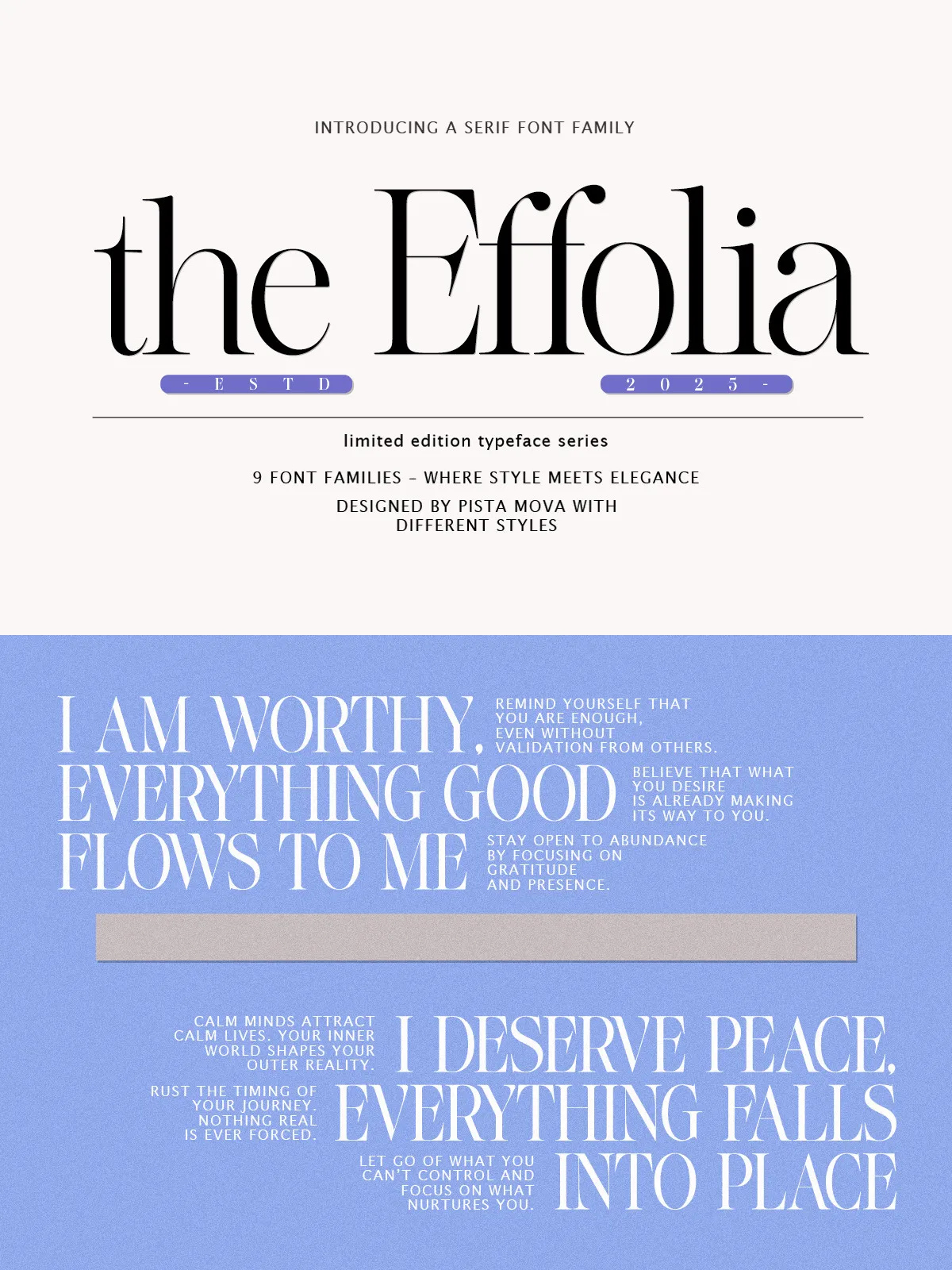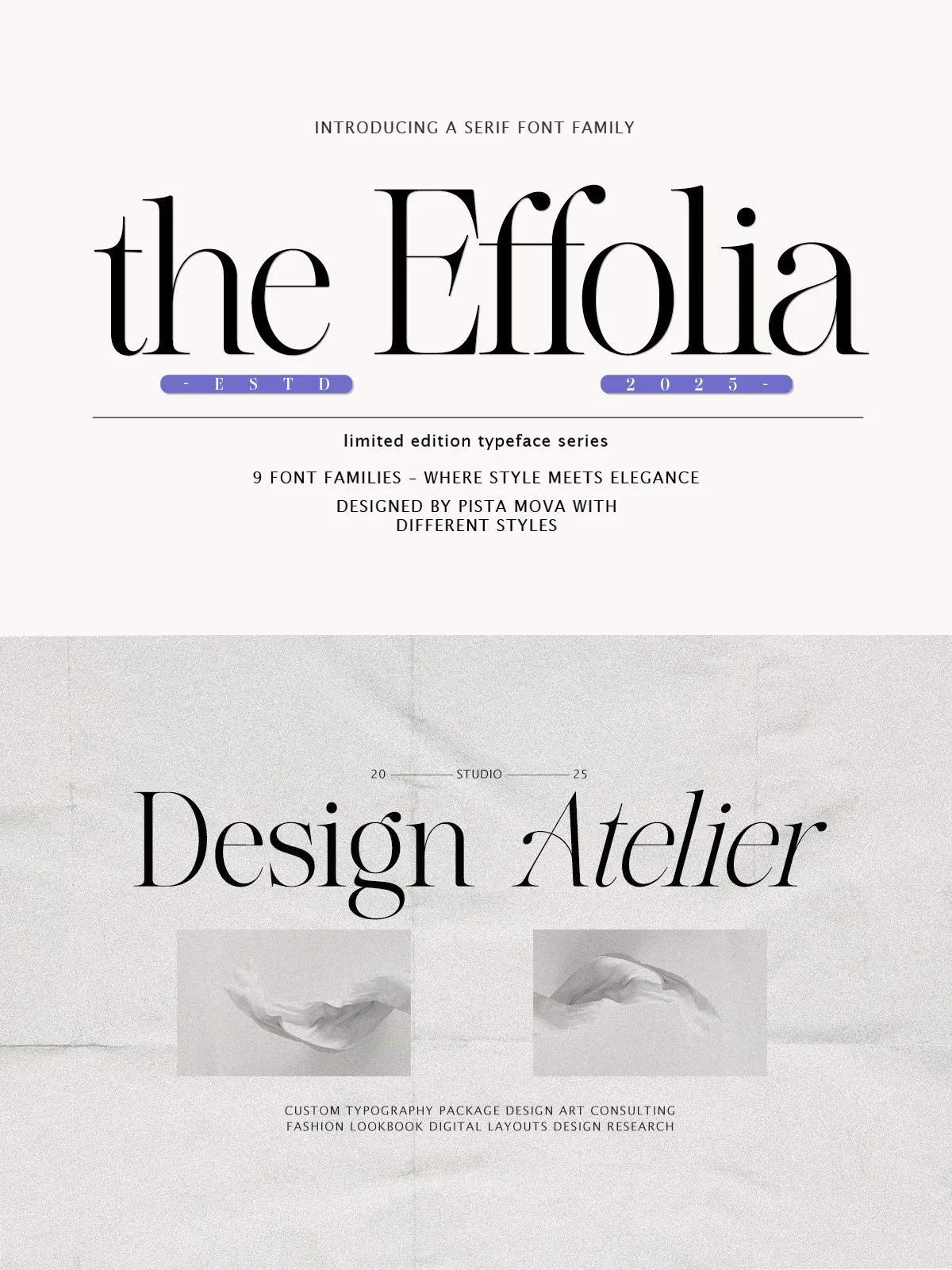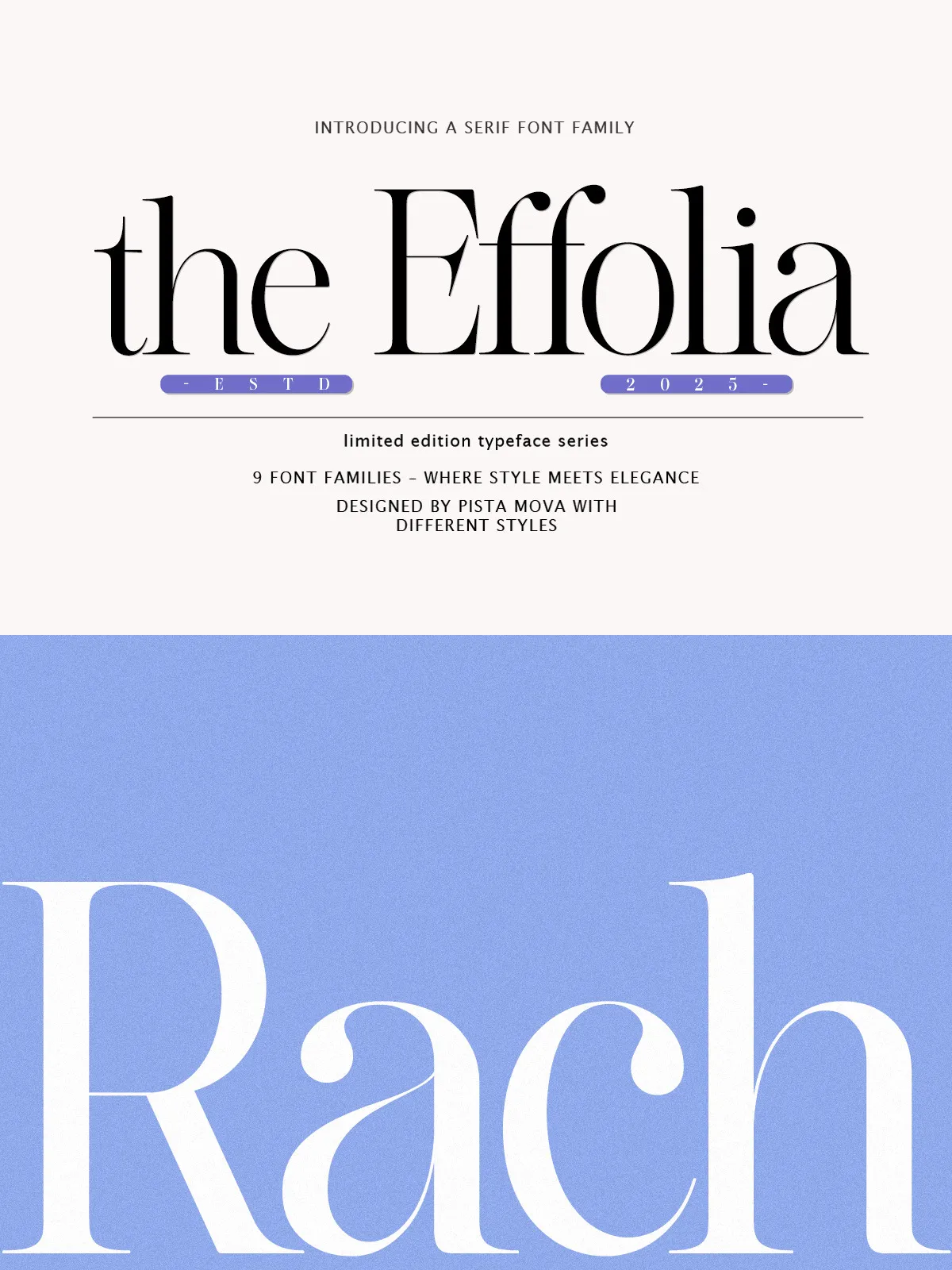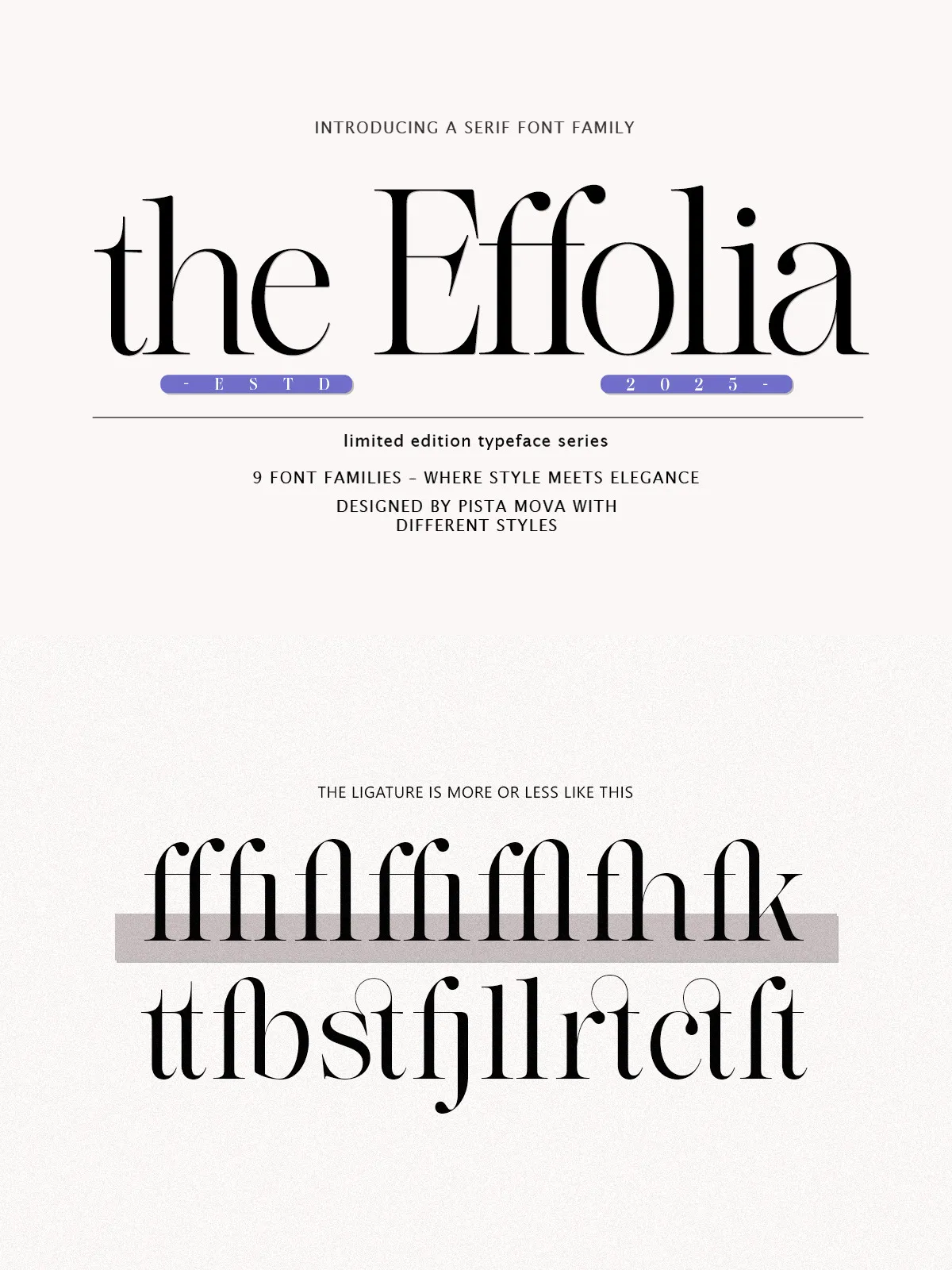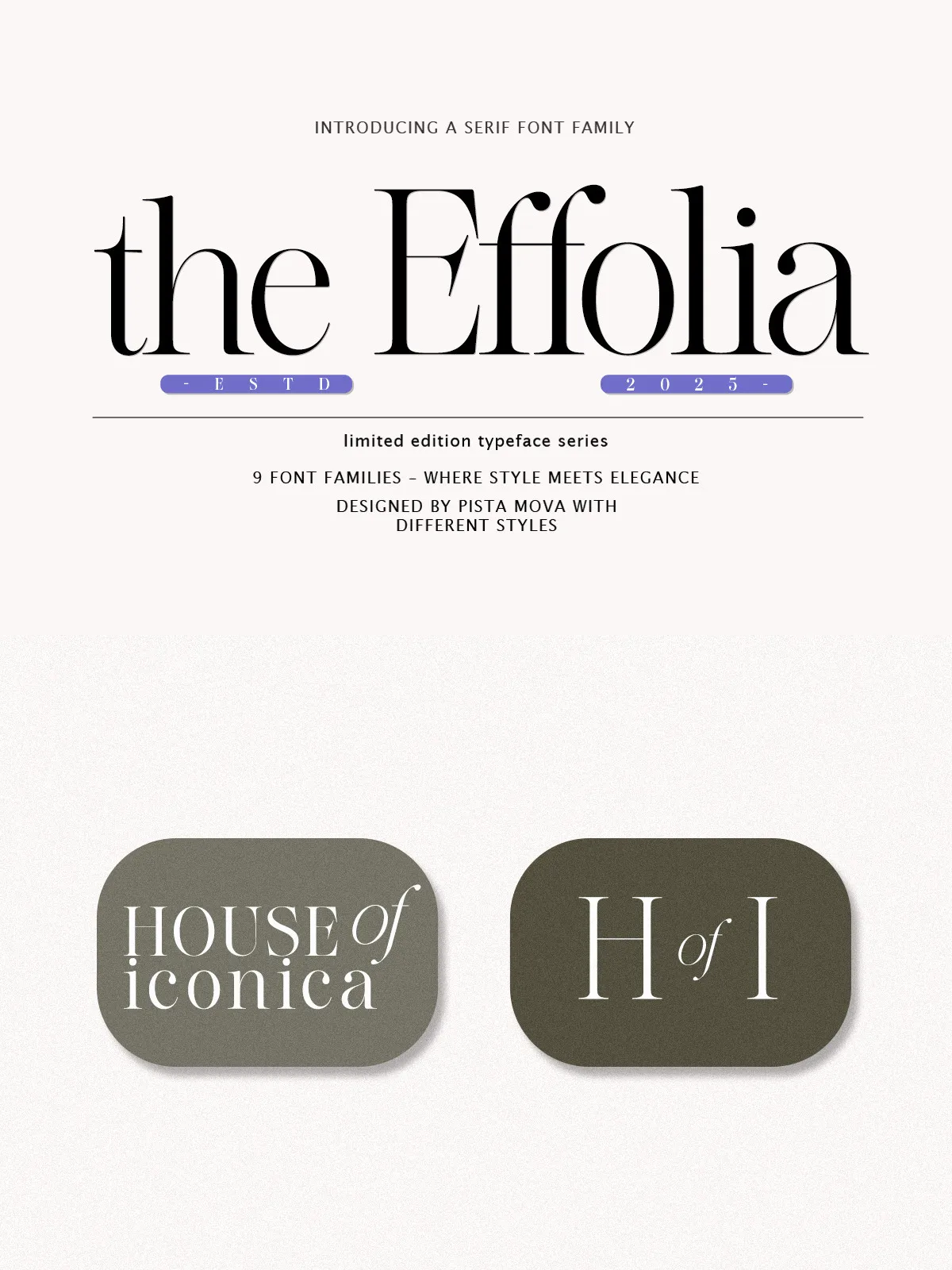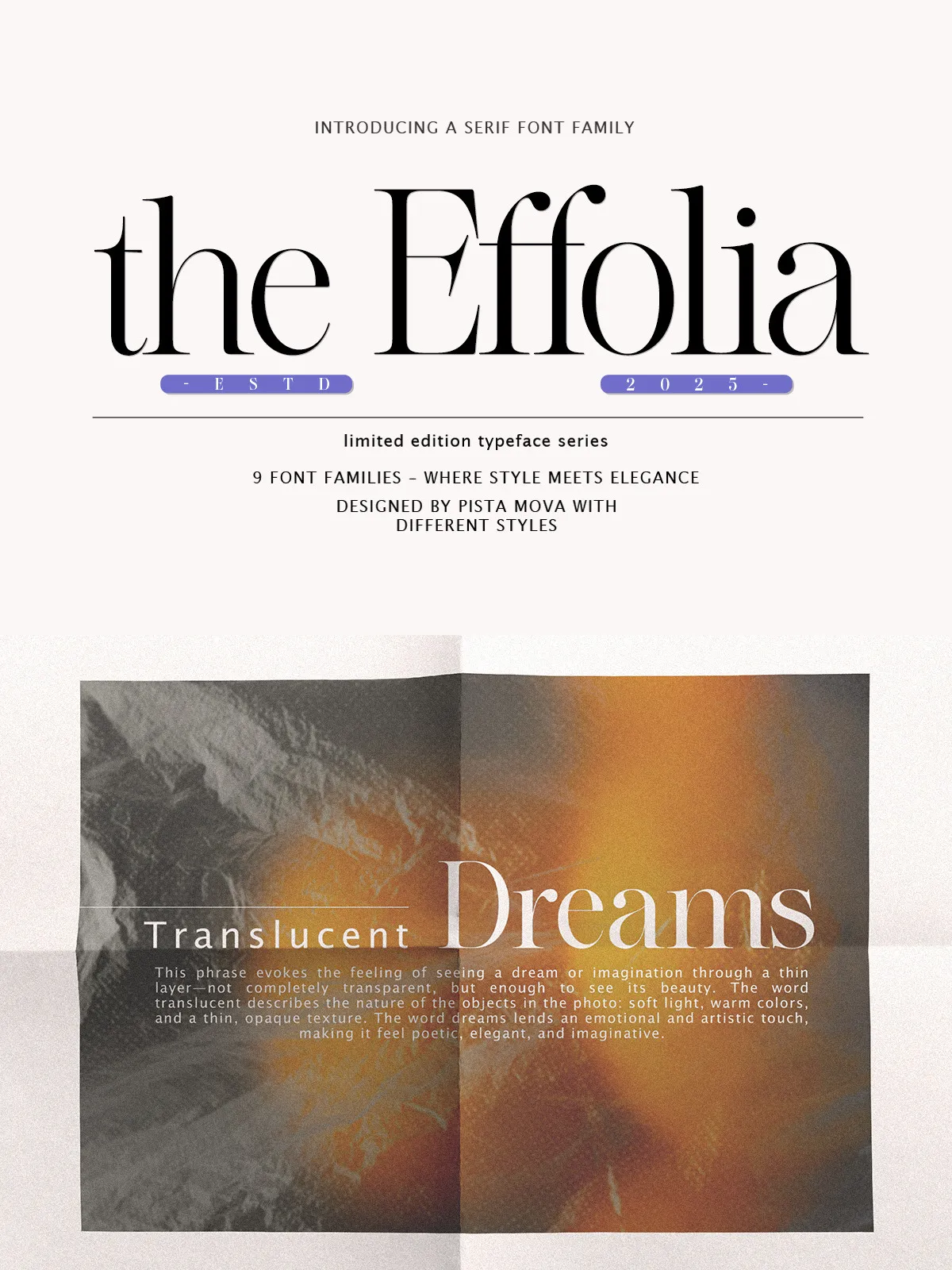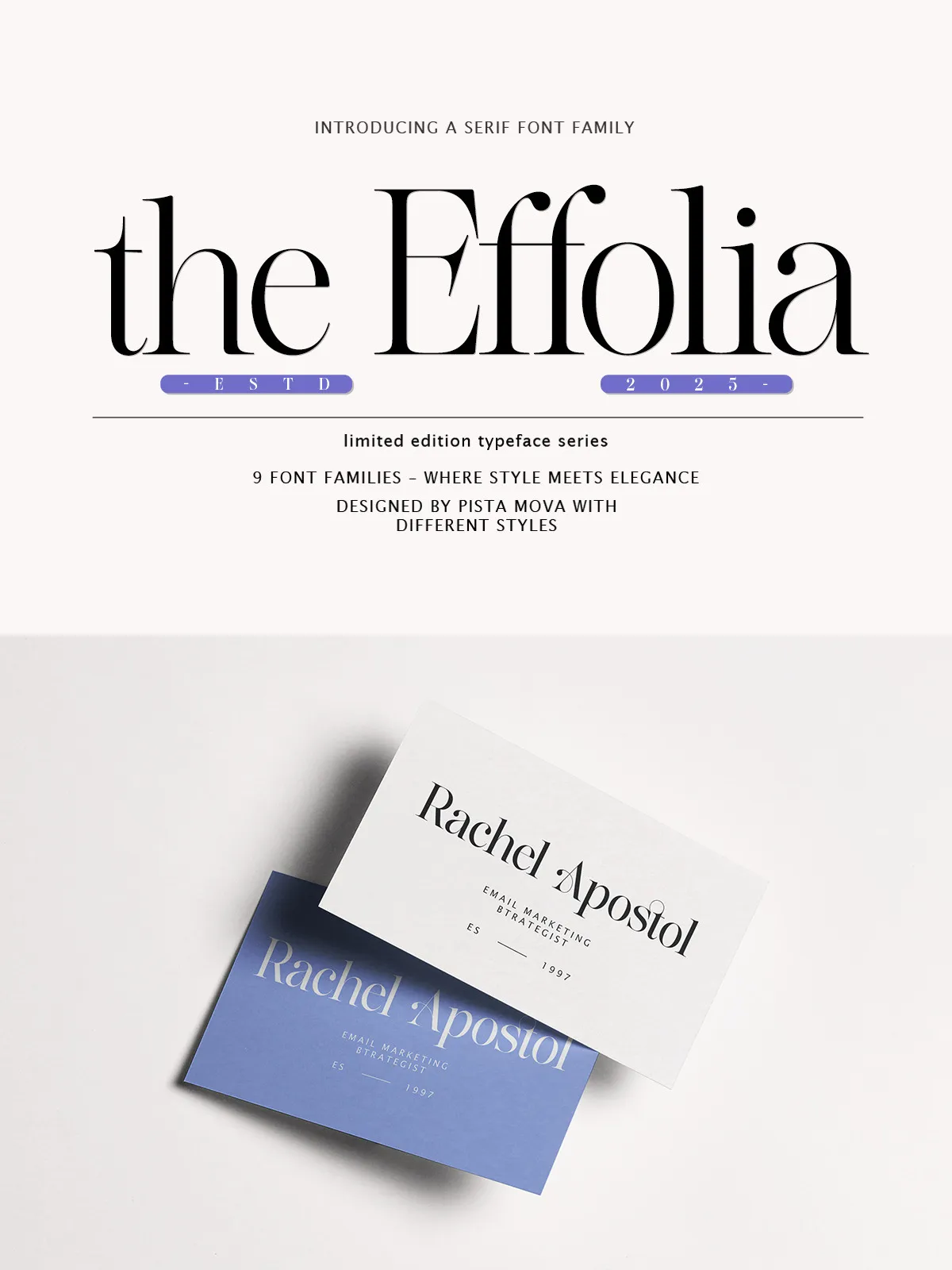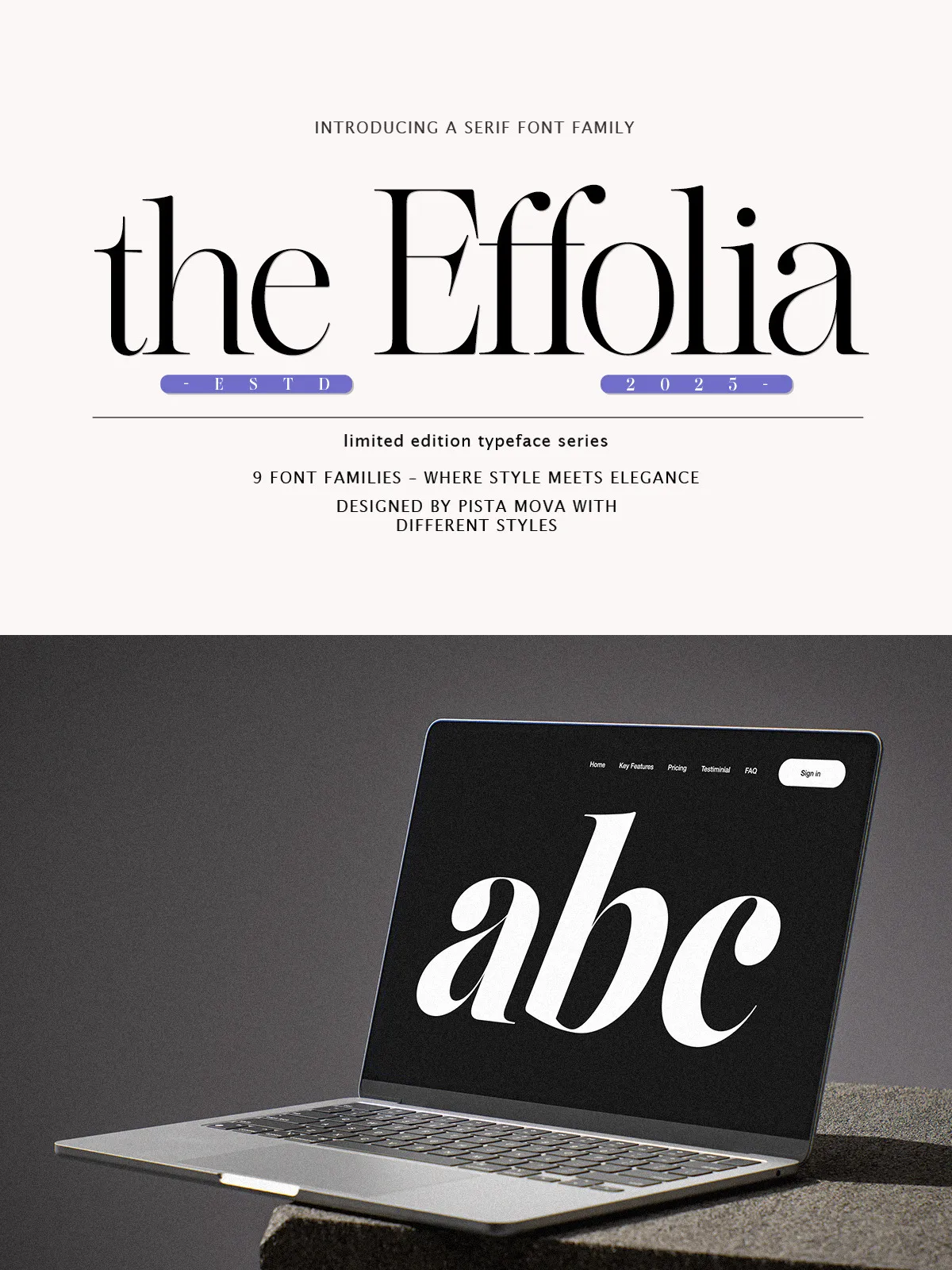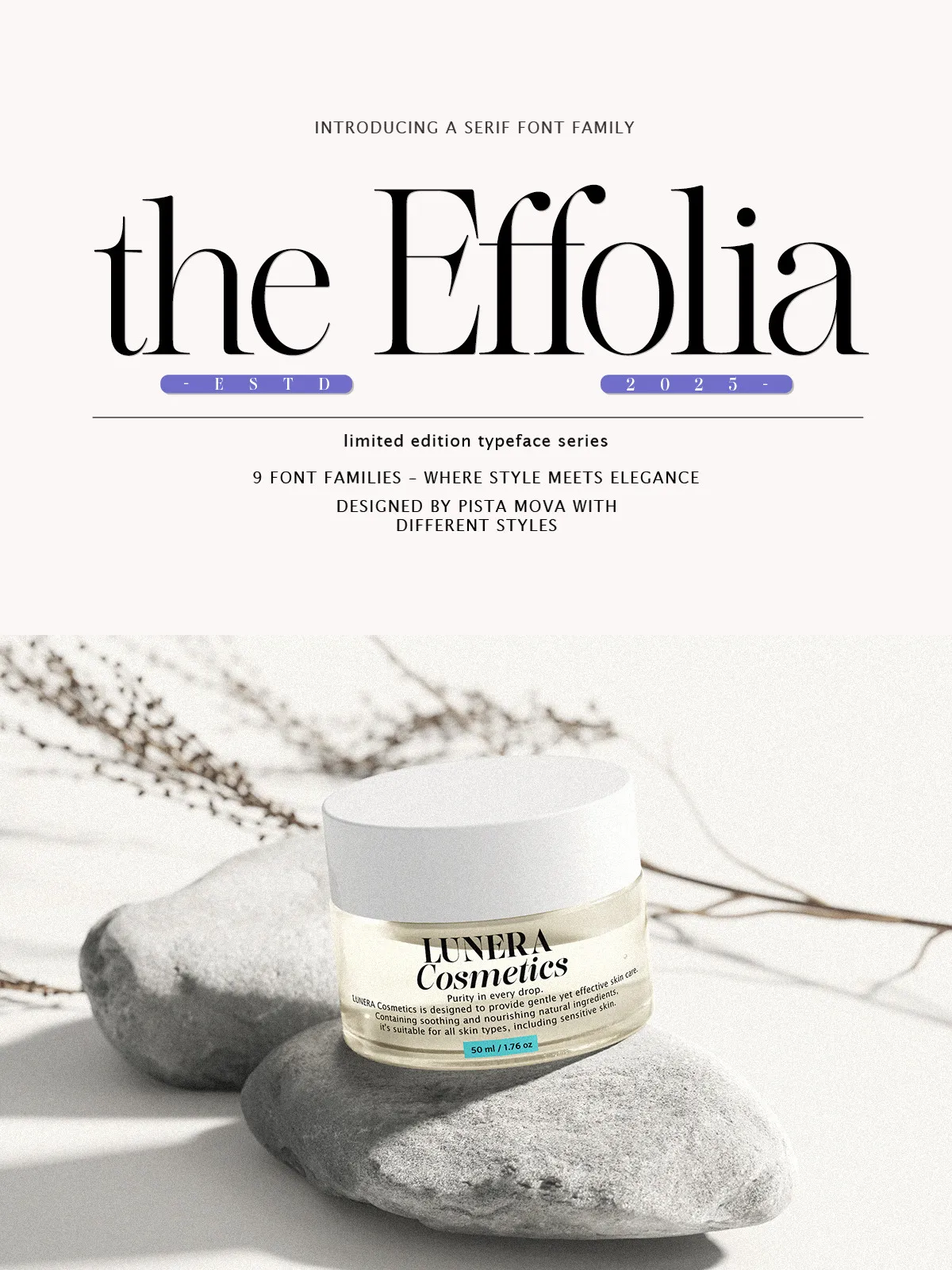
Boldly redefining the art of serif typography, The Effolia emerges as a masterpiece of balance, grace, and contemporary precision. Part of the celebrated The Softly Serif family, this typeface masterfully marries traditional serif structure with a refined, modern sensibility. Each curve, serifs, and stroke weight is meticulously engineered to command attention while maintaining supreme readability across any medium. This is not merely lettering — it’s visual storytelling at its finest.
Designed for Impact: High-Contrast Sophistication
The Effolia’s standout feature is its bold high-contrast stroke profile. The dramatic difference between thick and thin lines creates a rhythmic dynamism that draws the viewer deep into your content. Whether displayed in a headline, body text, or logo, The Effolia’s visual rhythm adds depth, energy, and emotional resonance to your message. This is typography with character — not just function.
Use The Effolia to:
- Gravitate attention with editorial headlines that demand a second look.
- Convey exclusivity and refinement in high-end branding and luxury packaging.
- Enhance user experience on websites by blending elegance with screen-optimized legibility.
Powerful Typography, Built for Professionals
Engineered with advanced typographic capabilities, The Effolia delivers more than just aesthetic appeal — it delivers control. Every font in the family is embedded with robust OpenType features, empowering creators to elevate their work with minimal effort and maximum impact.
Advanced OpenType Features at Your Fingertips
Maximize your creative control with:
- Contextual Ligatures: Automatically connect letter pairs like ‘fi’, ‘fl’, and ‘ff’ for seamless flow and elevated design.
- Alternates & Stylistic Sets: Access multiple visual variations to introduce subtle diversity and avoid repetition across long texts.
- True Italics: Not merely slanted versions — these are individually crafted with independent forms that harmonize with the upright styles.
- Expert Sets & Stylistic Alternatives: Unlock rare glyphs, swash characters, and decorative flourishes for premium typographic expression.
These features ensure that The Effolia performs flawlessly in professional design environments — from print-ready layouts to responsive web typography.
Global Reach, Fluent Design
The Effolia isn’t just beautiful — it’s inclusive. With full support for over 90 languages, including French, German, Spanish, Portuguese, Dutch, Scandinavian languages, and Cyrillic scripts, The Effolia enables you to communicate authentically with a truly global audience.
Whether you’re designing for international clients, publishing multilingual content, or creating inclusive branding, The Effolia removes language barriers through consistent, elegant typography across scripts and accents.
Each variant offers a unique expression — from condensed and compact forms to expanded and spacious layouts — giving you the flexibility to design with precision, rhythm, and intent.
Ideal Applications for Every Creative Vision
The Effolia thrives wherever elegance and clarity are essential:
Editorial Excellence
Perfect for magazines, newspapers, literary works, and long-form content. The Effolia’s refined structure enhances readability while adding sophistication to every page.
Branding with Authority
Create powerful logos, brand identities, and visual systems that convey prestige, craftsmanship, and lasting value.
Web & Digital Design
Optimized for responsive layouts, The Effolia delivers crisp rendering across devices, ensuring your digital presence looks polished and professional.
Print & Packaging
Imbue product packaging, book covers, and stationery with a sense of refined luxury. The Effolia’s subtle texture and high contrast stand out in both color and monochrome printing.
Invitations & Stationery
Transform invitations, wedding cards, and business stationery into heirlooms of visual storytelling.
From the first draft to the final print, let The Effolia guide your vision with elegance, confidence, and timeless strength. Craft with intention. Design with soul.